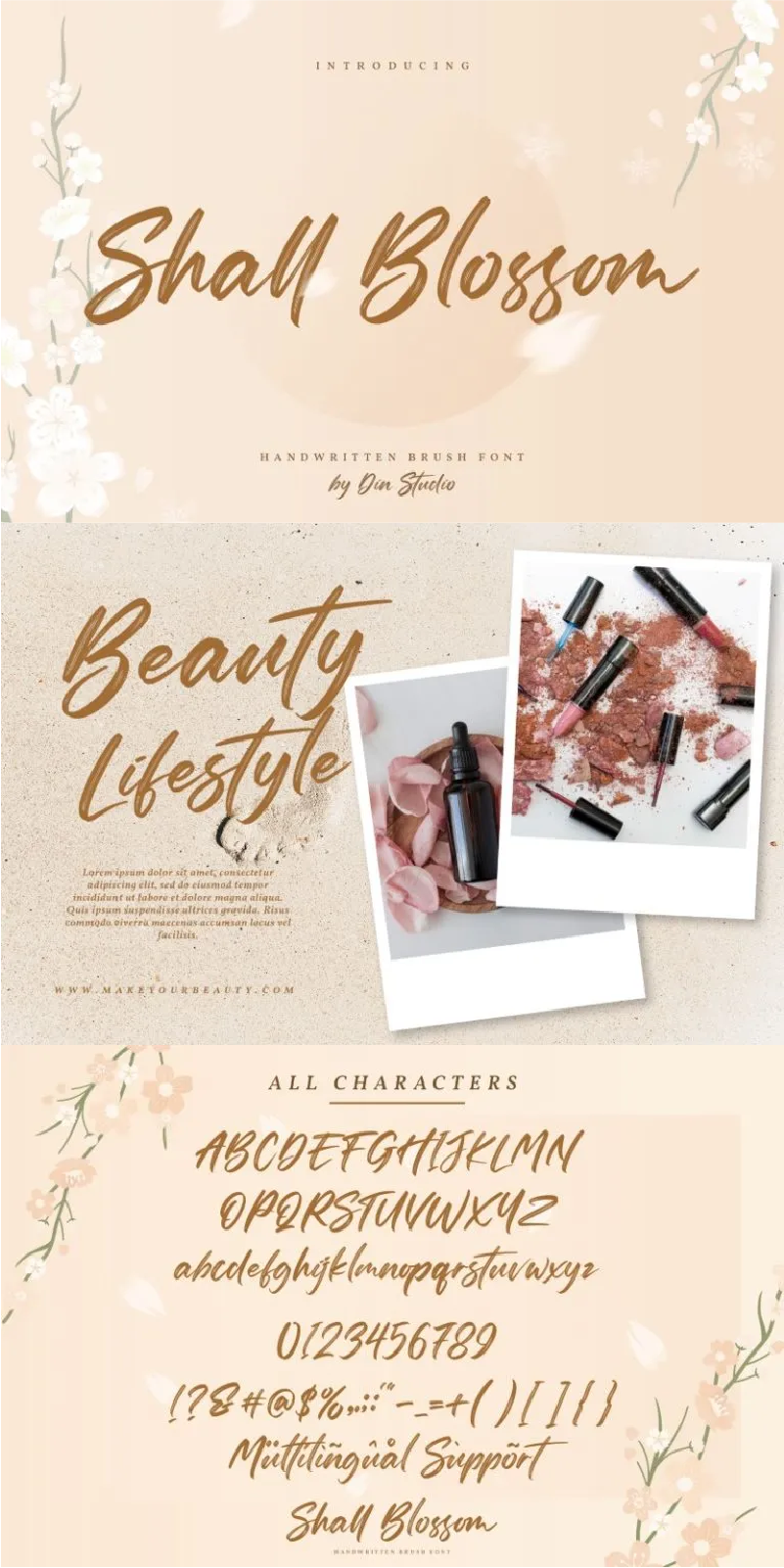
Shall Blossom Font
About Shall Blossom
Shall Blossom is a lovely brush font. The handwritten combined with brush font will make your design project more attractive. Made for any professional project branding. It is the best for logos, branding and quotes. See the previews above to get some inspiration on how you can use them.
– Stylistic Set
– Beautiful Ligatures